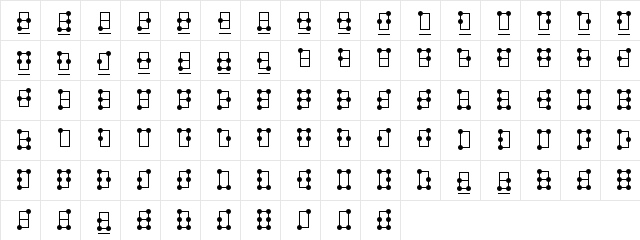
Braille Pinboard HC Regular
| Designer | Roberto Mocci |
Design Context for Braille Pinboard HC Typeface
Braille Pinboard HC offers clean, dependable letterforms without strong stylistic allegiance, making it a practical choice for designers who need flexibility.